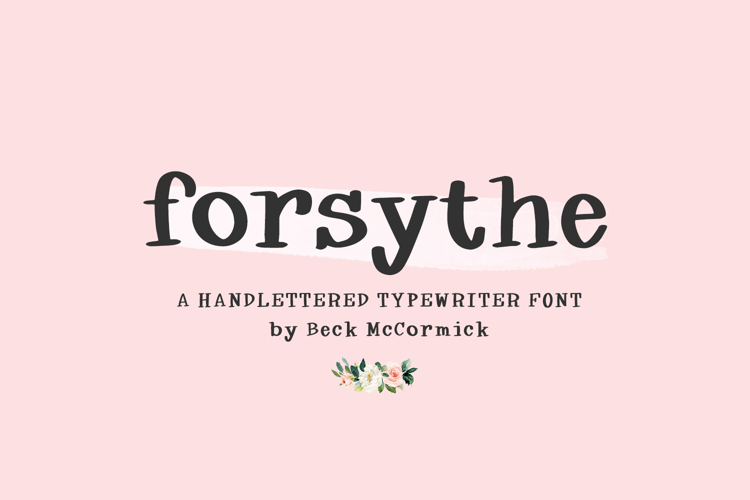
Say hello to Forsythe, a handlettered typewriter style font. Forsythe is cute, quirky, and clean!
Forsythe is best for:
- feminine, crafty projects with your Cricut or Silhouette machine, or your SVG design business
- farmhouse decor and crafts
- website design + website accents, blog design
- feminine graphic tee shirt design & other apparel